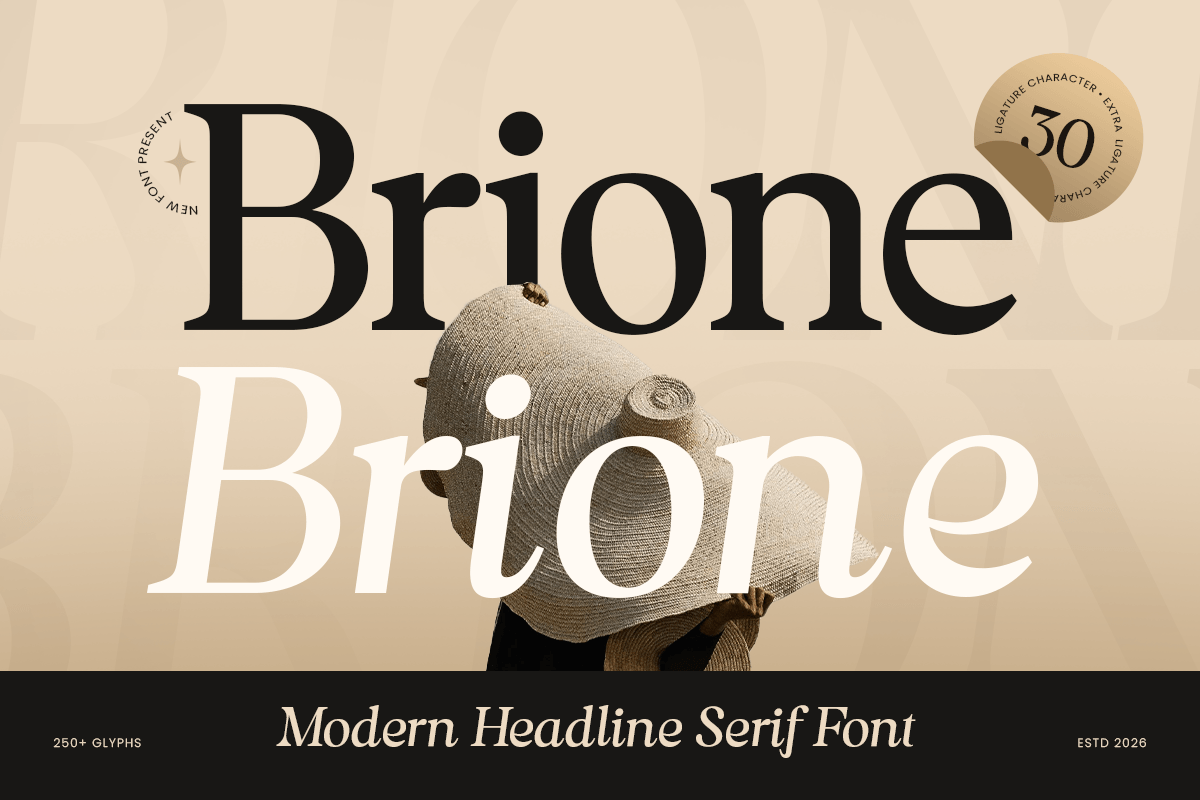
Brione
-Modern Editorial Serif Font
Brione - Modern Editorial Serif Font
Brione is a modern headline serif font crafted to create strong visual impact while maintaining elegance and sophistication. Designed with refined proportions and contemporary serif details, this typeface is perfect for magazine covers, editorial layouts, luxury branding, and attention-grabbing headlines.
Its distinctive structure gives every word a commanding presence, making Brione ideal for designers who want to combine modern aesthetics with timeless typographic beauty. Whether used for fashion campaigns, luxury packaging, book covers, or creative branding, it delivers confidence and style in every composition.
With balanced contrast and excellent readability, Brione performs beautifully across both digital and print media, offering versatility for premium creative projects and professional design systems.
Brione – Modern Headline Serif Font Features
• Modern serif design optimized for headlines and editorial layouts
• Available with Regular and Italic version inside of font files
• Perfect for branding, magazine titles, packaging, and luxury projects
• Elegant proportions with contemporary visual appeal
• Strong display presence while maintaining readability
• OpenType features for enhanced typographic flexibility
Create bold and elegant statements with Brione – the ultimate modern headline serif font for editorial and luxury design. ✨📖